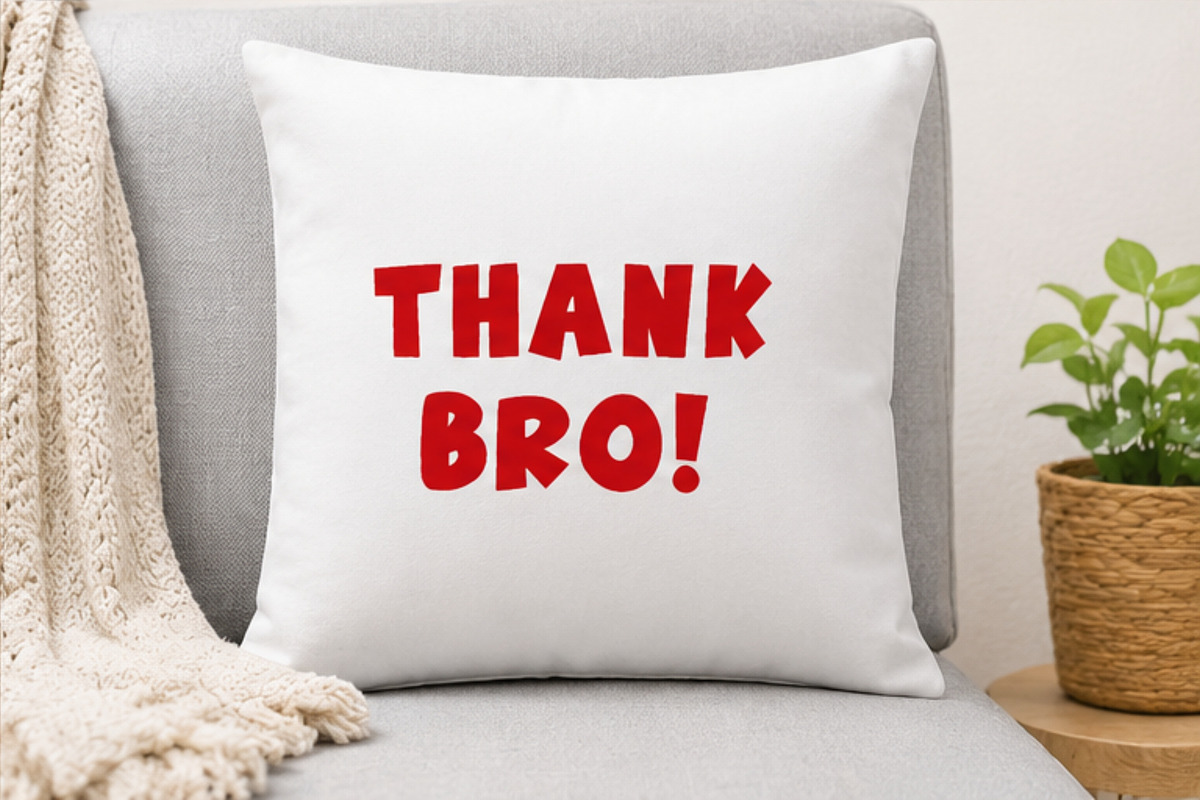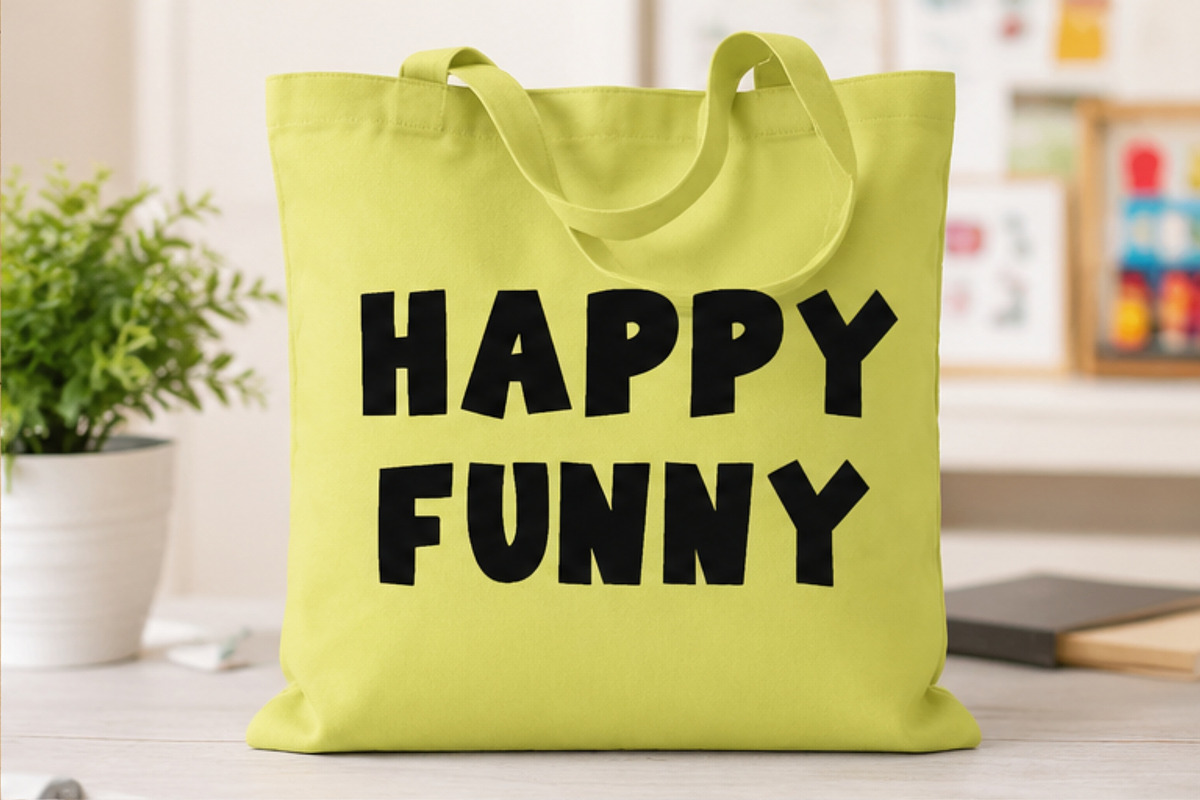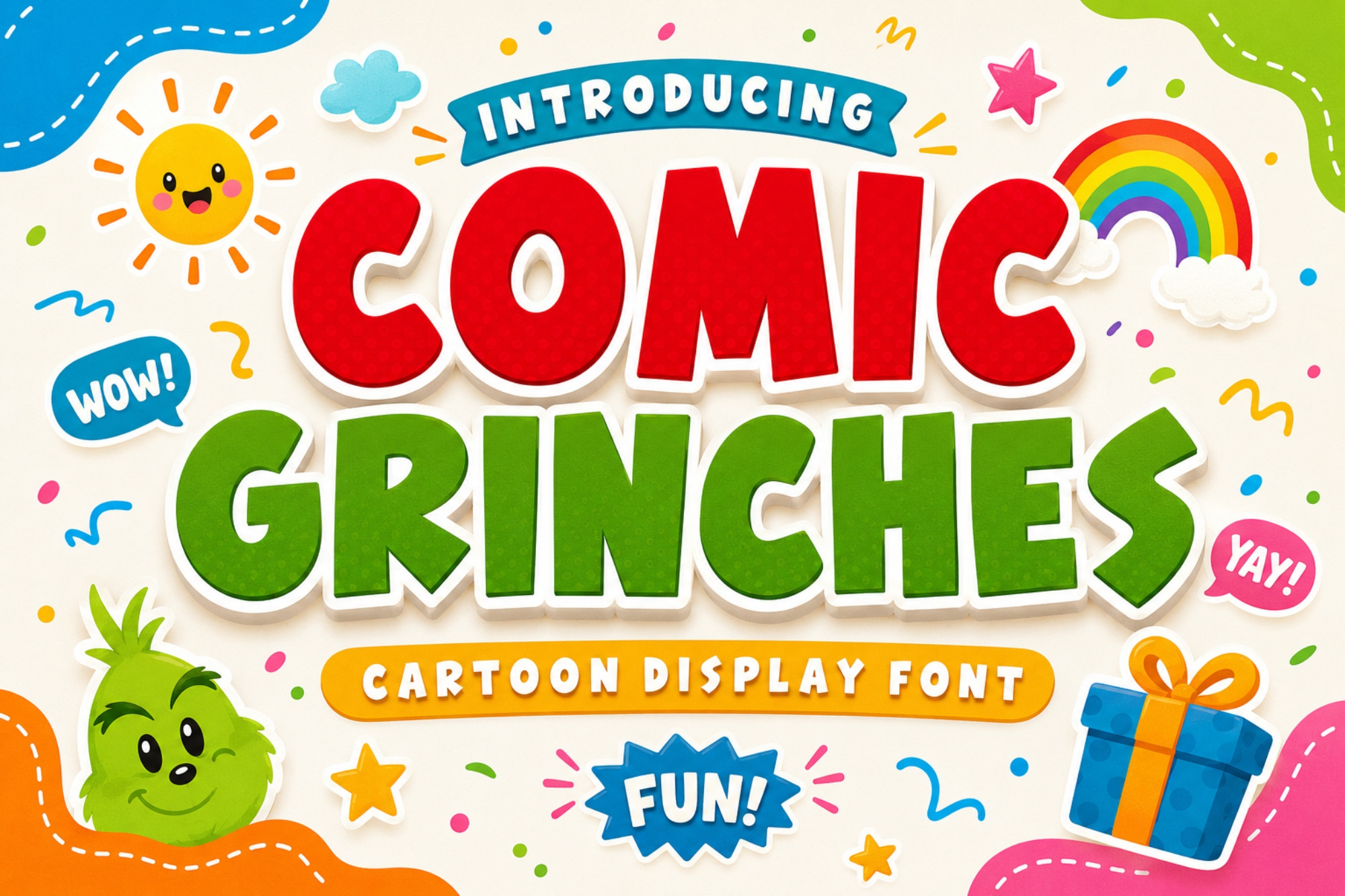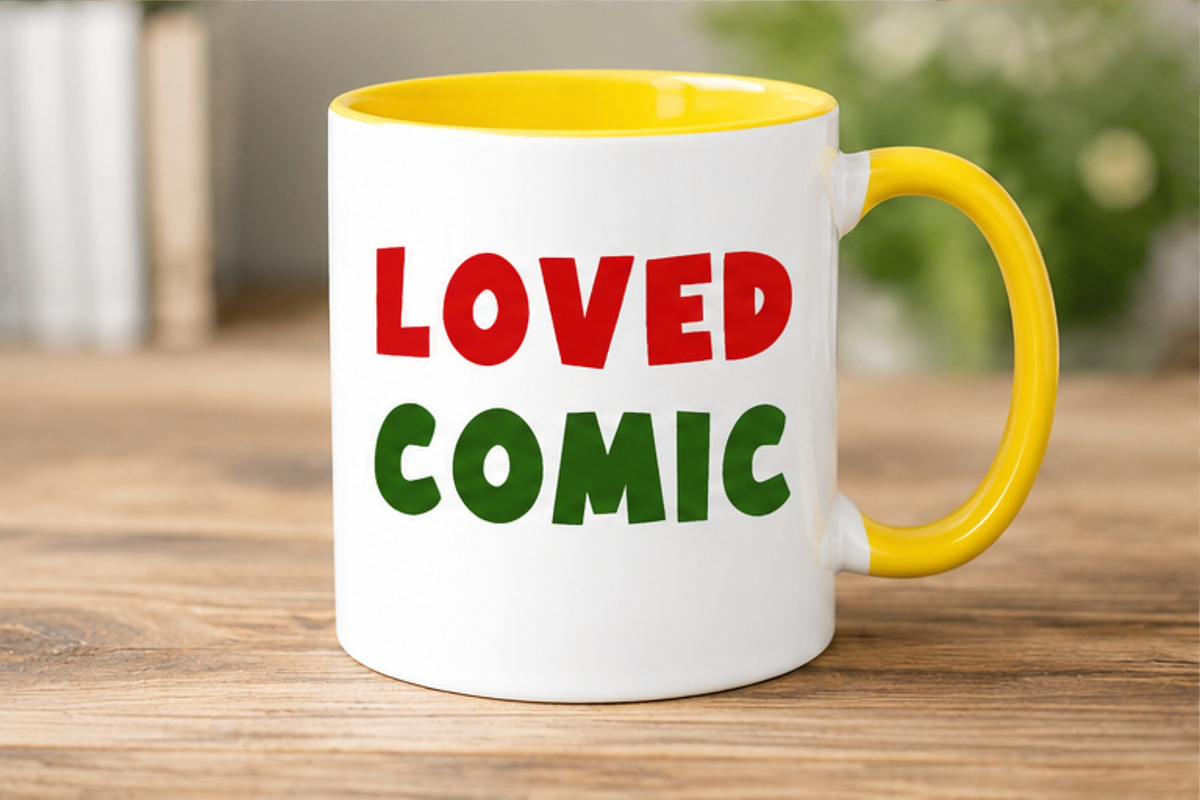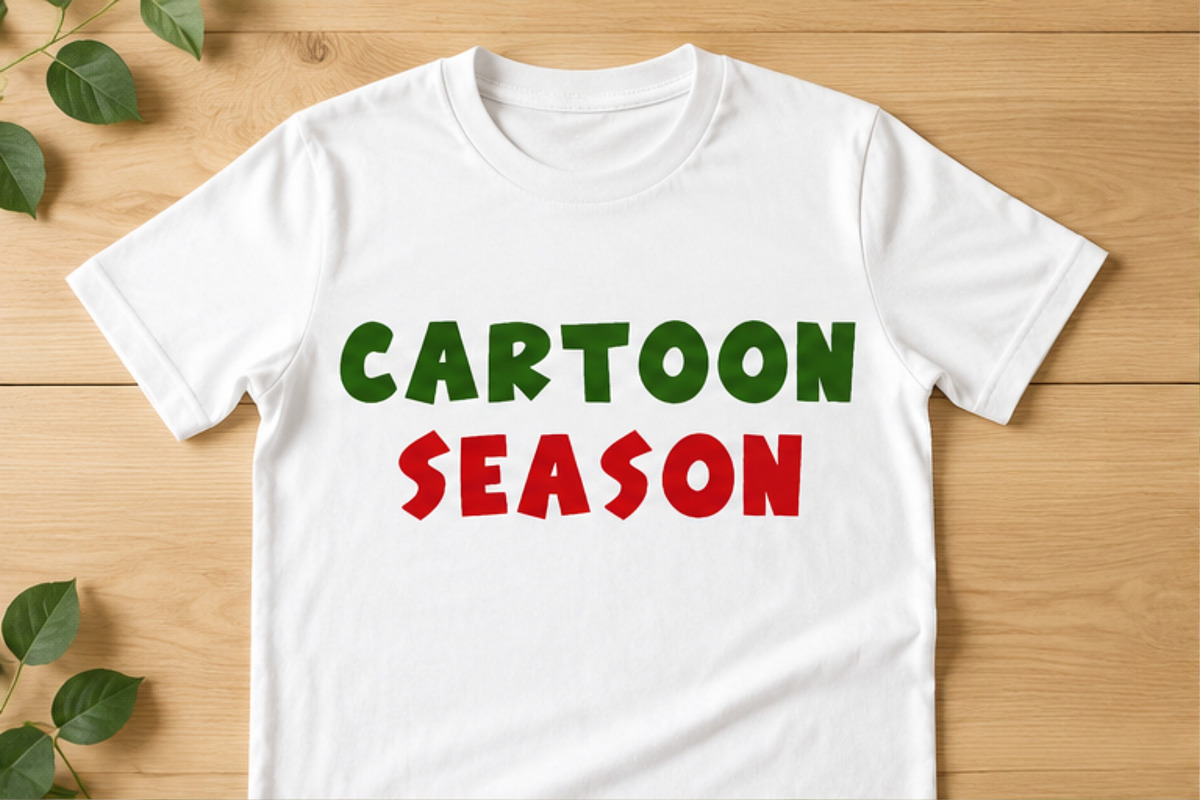
Comic Grinches - Playful Font
Comic Grinches is a fun, playful, and quirky cartoon display font inspired by mischievous Christmas characters and cheerful holiday vibes. Its bold, expressive letterforms are perfect for creating eye-catching designs with a humorous and festive personality.
Ideal for Christmas crafts, holiday greeting cards, posters, invitations, apparel, stickers, sublimation designs, mugs, signs, party decorations, social media graphics, and seasonal branding.
Playful cartoon-style lettering
Bold and expressive characters
Fun Christmas-inspired personality
Perfect for festive and humorous designs